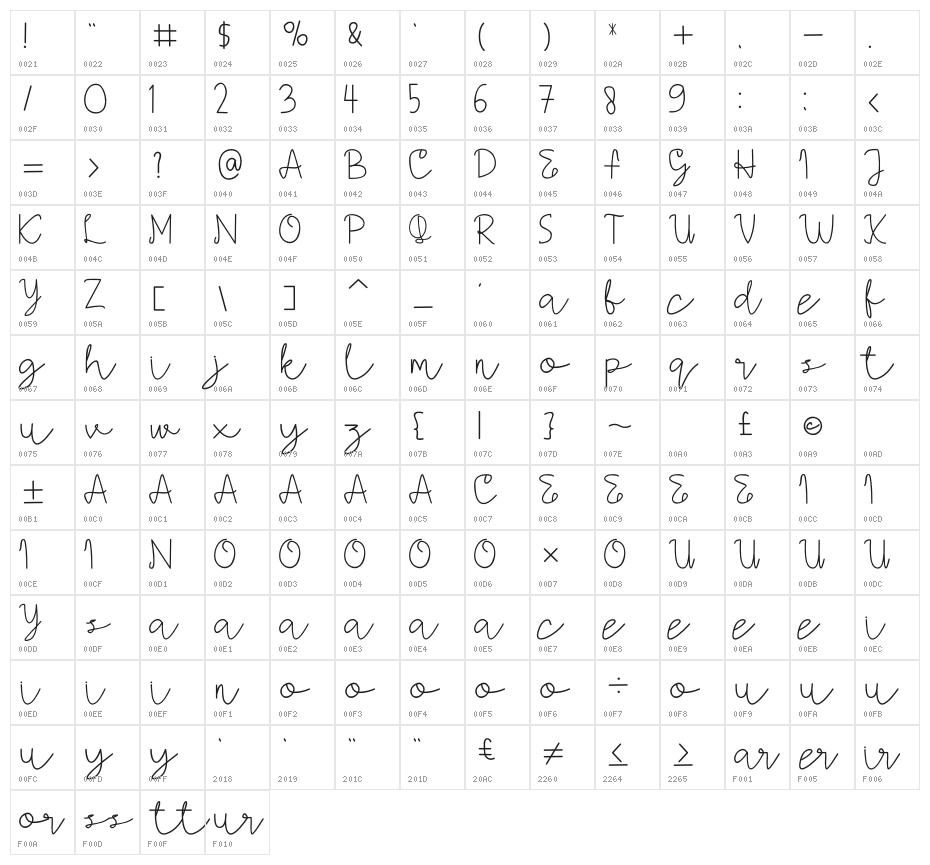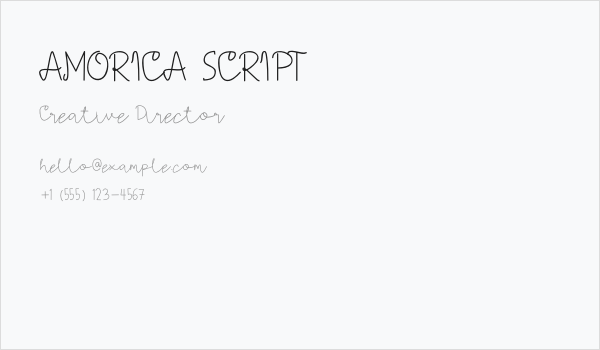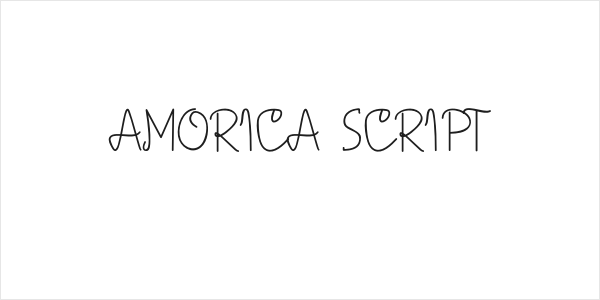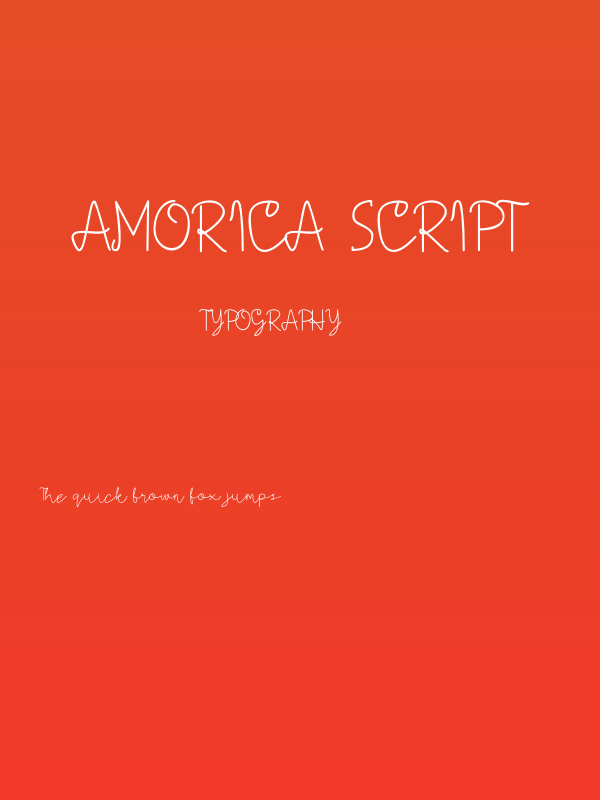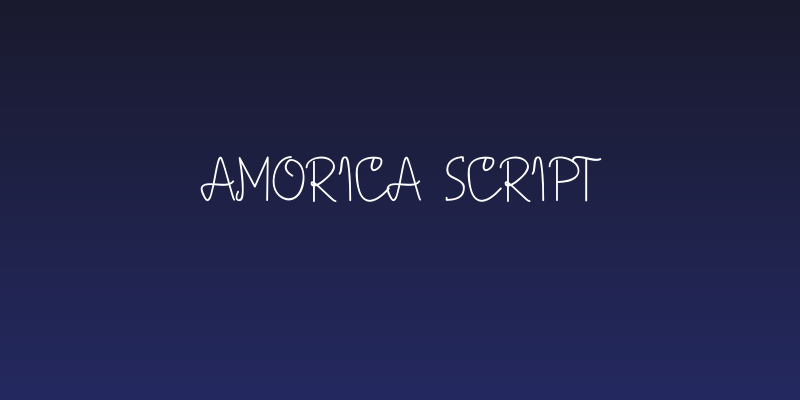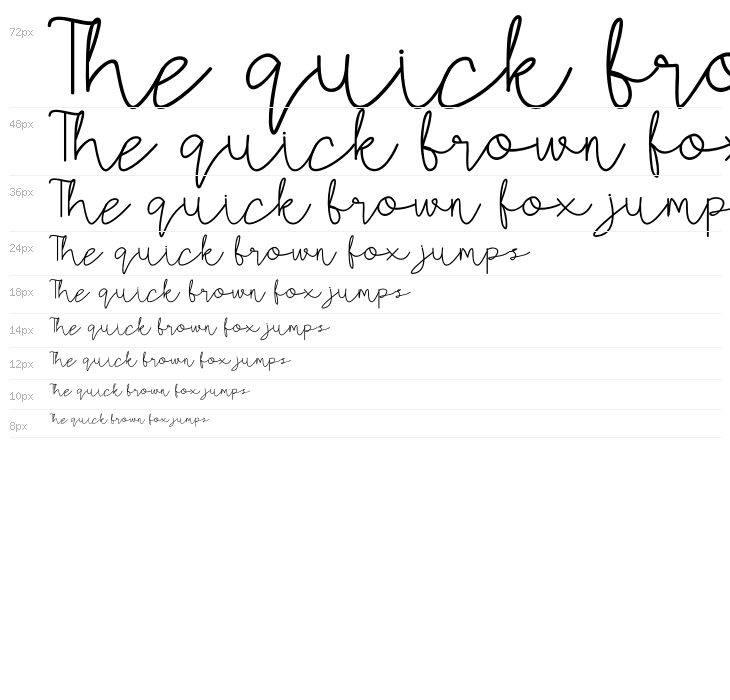
AMORICA SCRIPT Font
AMORICA SCRIPT Description
This font features a playful and flowing script style, characterized by its smooth, continuous strokes and elegant curves. The uppercase letters are bold and expressive, while the lowercase letters maintain a consistent flow, enhancing readability. The numerals are clear and distinct, complementing the overall style. Special characters are thoughtfully designed to match the font's aesthetic, making it versatile for various uses. Its handwritten appearance adds a personal touch, suitable for creative and informal projects.